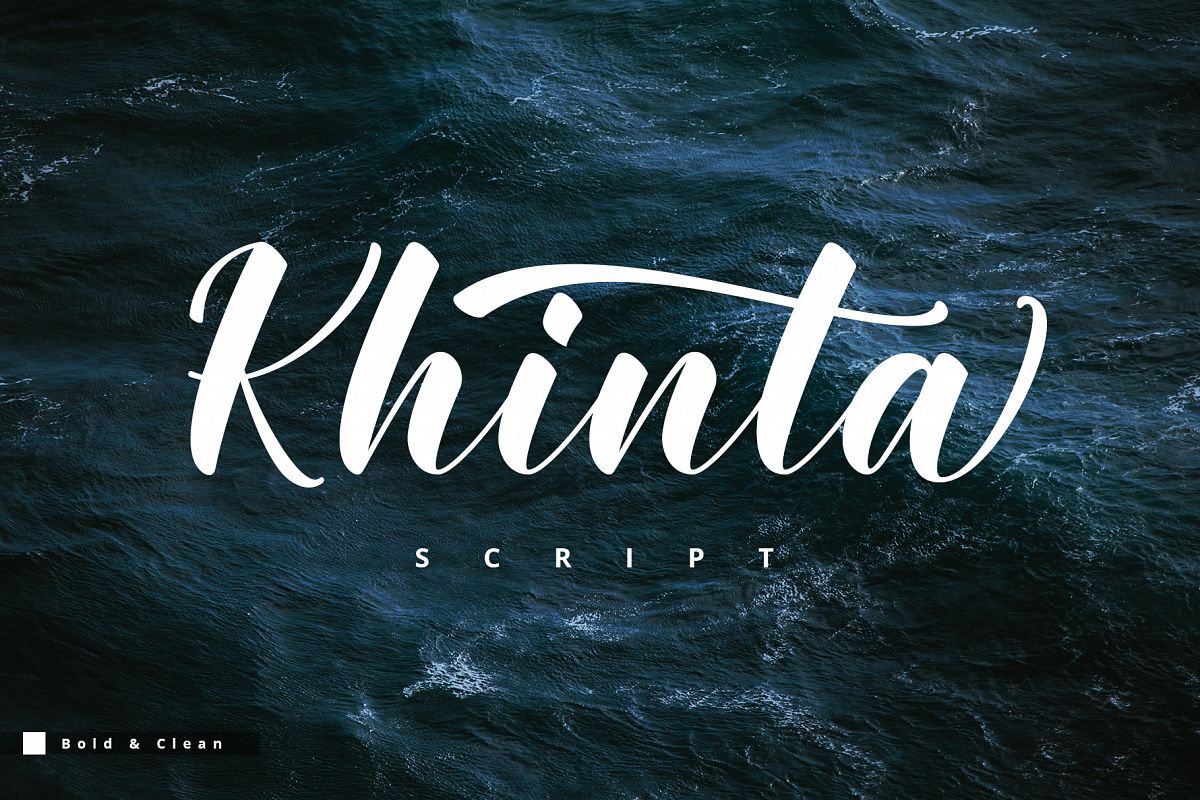
Khinta Script
Hello!Introduce Khinta Script!This is a new font script. Khinta comes with a bold and clean style, in this font you will find a style that is firm, luxurious and simple. Available 400 glyphs in it! So you can use it freely as you wish and your design work needs!
With a style like this, this font will be suitable in use for logo's, branding projects, homeware designs, product packaging, mugs, quotes, posters, shopping bags, logo's, t-shirts, book covers, name card, invitation cards, greeting cards, and all your other lovely projects.
You can use this font for your job very easily. Because there are many features in it. Contains the complete set of lower and uppercase letters, punctuation, numbers, web fonts, and multilingual support. This font also includes several ligatures and alternative style Stylistic Set For those of you who have software that is capable of working OpenType (Corel Draw / Photoshop / Illustrator / InDesign).